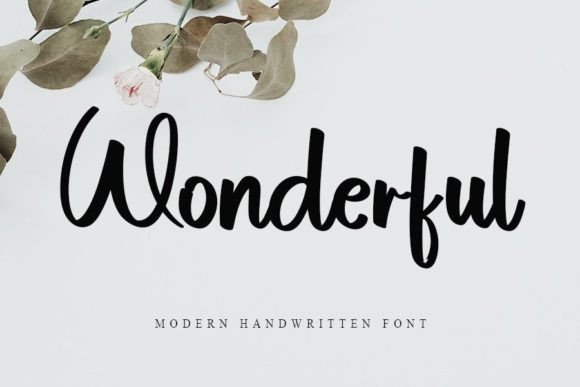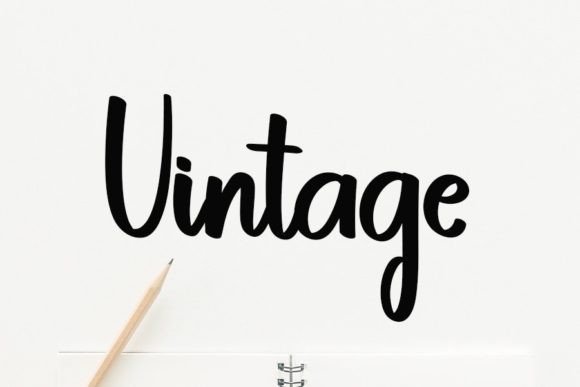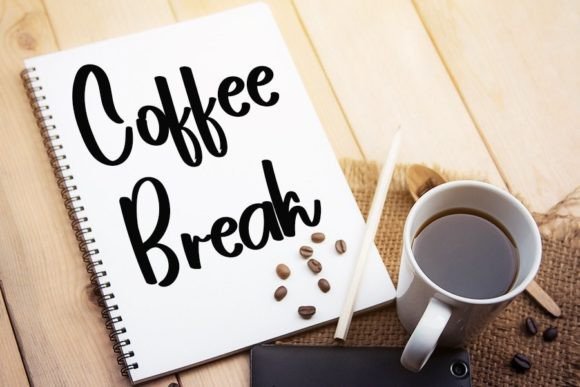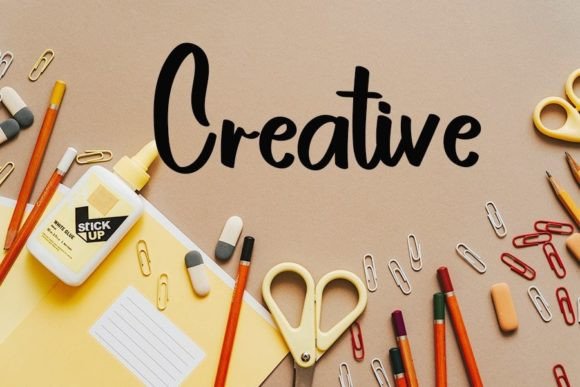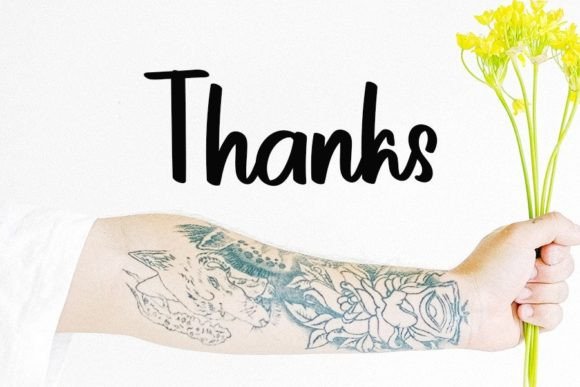
Wonderful Font
About Wonderful Font
Wonderful, a font that embodies luxury with its exquisite handwritten style, is poised to become the centerpiece of your favorite projects. Immerse yourself in its charm, characterized by an elegant touch that transcends the ordinary, and let it elevate your designs to unparalleled heights. This font is not merely a typographic choice; it’s an opportunity to infuse your creations with a touch of opulence, resulting in designs that are not just eye-catching but truly spectacular.
The distinct and timeless style of Wonderful sets it apart, making it a versatile companion for a range of creative endeavors. Whether you are working on branding, crafting invitations, or engaging in any other project that demands a touch of sophistication, Wonderful is ready to make a statement. Each stroke and curve of this font tells a story of elegance, contributing to an aesthetic that stands the test of time.
As you explore Wonderful, you’ll discover its ability to transform your projects into visual masterpieces. It goes beyond being a font; it becomes a design partner, adding a layer of beauty that resonates with both creativity and refinement. Fall in love with the way Wonderful enhances your creative expression, turning every project into a showcase of spectacular artistry.
Imagine the impact of Wonderful on your brand identity—each letter becoming a brushstroke that paints a picture of luxury and style. Consider its role in crafting invitations; every word written in Wonderful becomes an elegant gesture, inviting recipients into a world of sophistication.
Embrace the luxury of Wonderful, where each character is a testament to timeless beauty. Let it be the catalyst for creating designs that leave a lasting impression. Fall in love with the handwritten elegance of Wonderful, and witness how it transforms your favorite projects into works of art that stand out for their distinctiveness and brilliance.